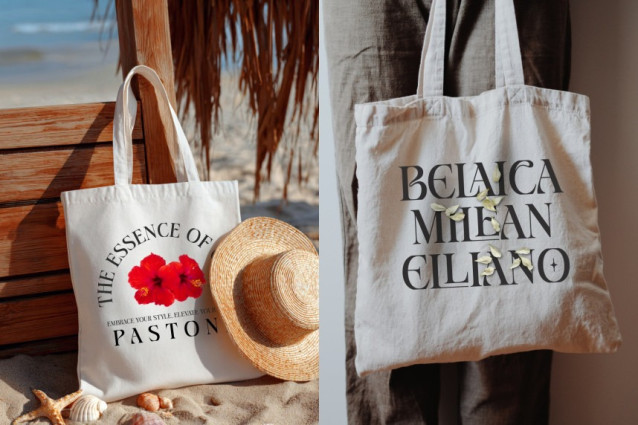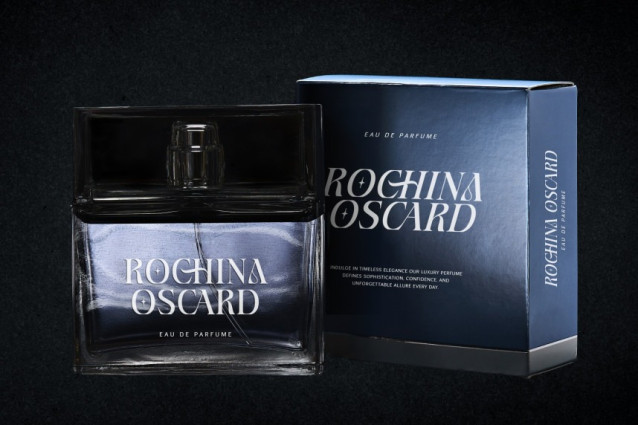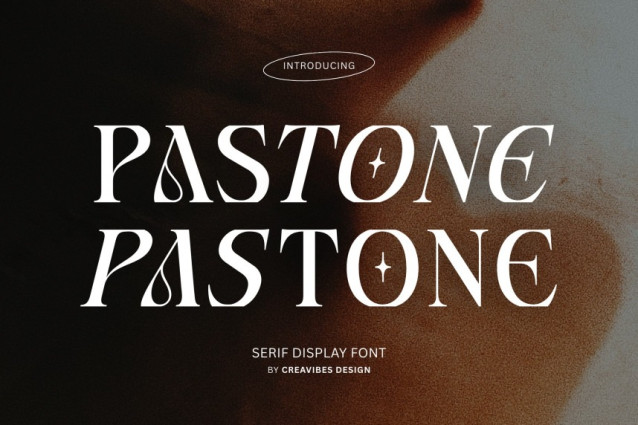
Pastone Font
Pastone Font is a classic serif typeface by Creavibes Design, featuring Regular and Italic styles with a clean, elegant look. It includes 246 glyphs and supports 249 characters, making it suitable for refined projects like branding, invitations, and editorial design. The font is free for personal use only; a commercial license is required.